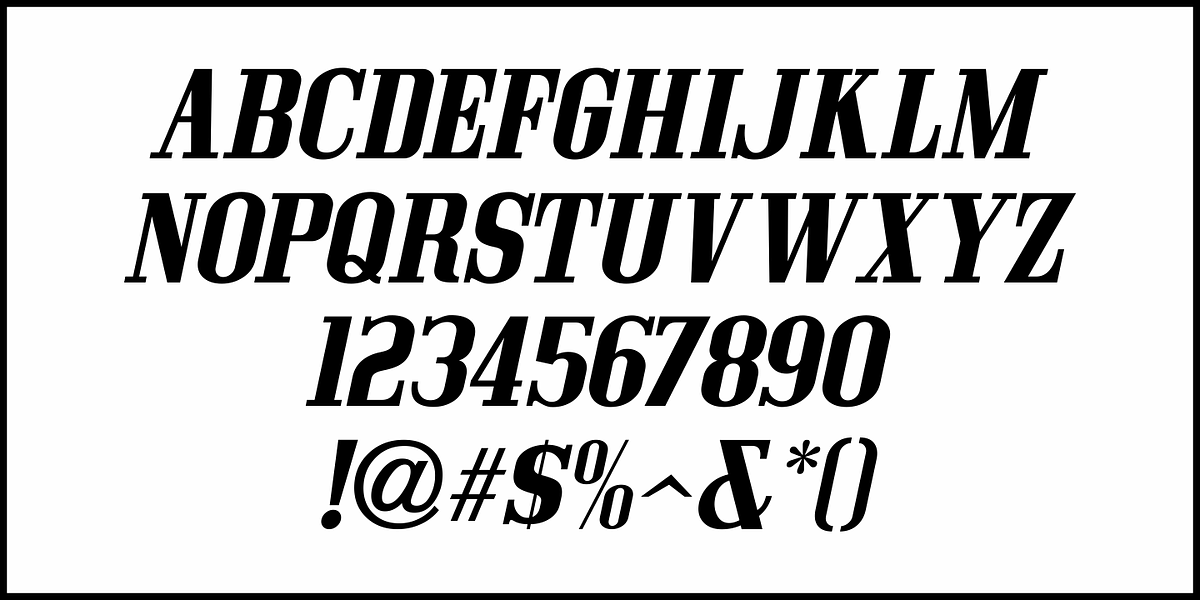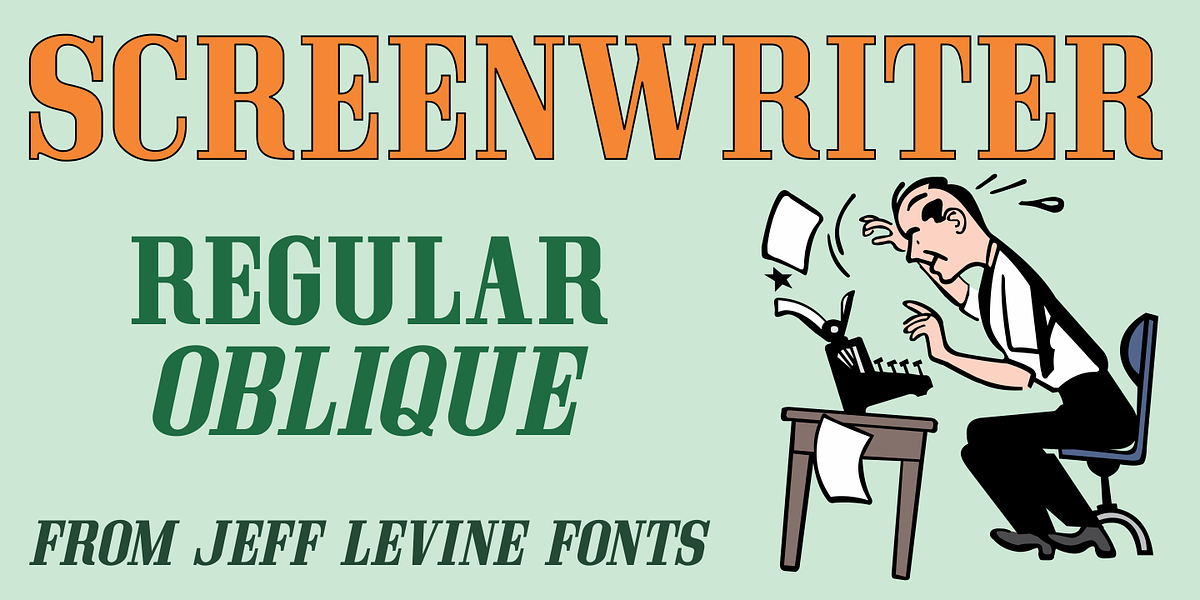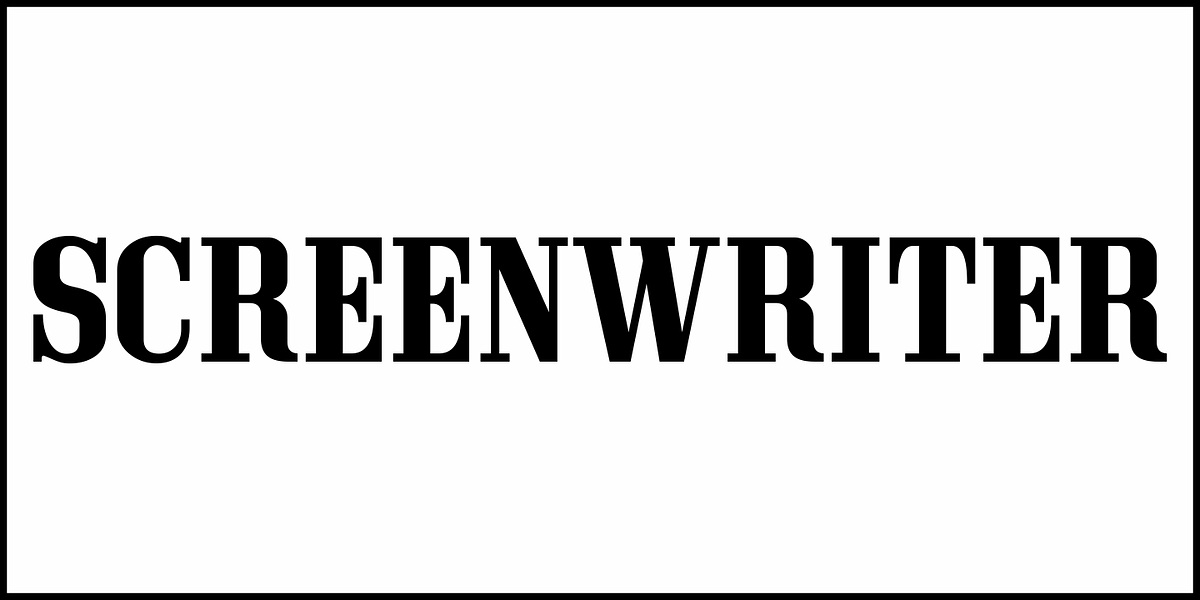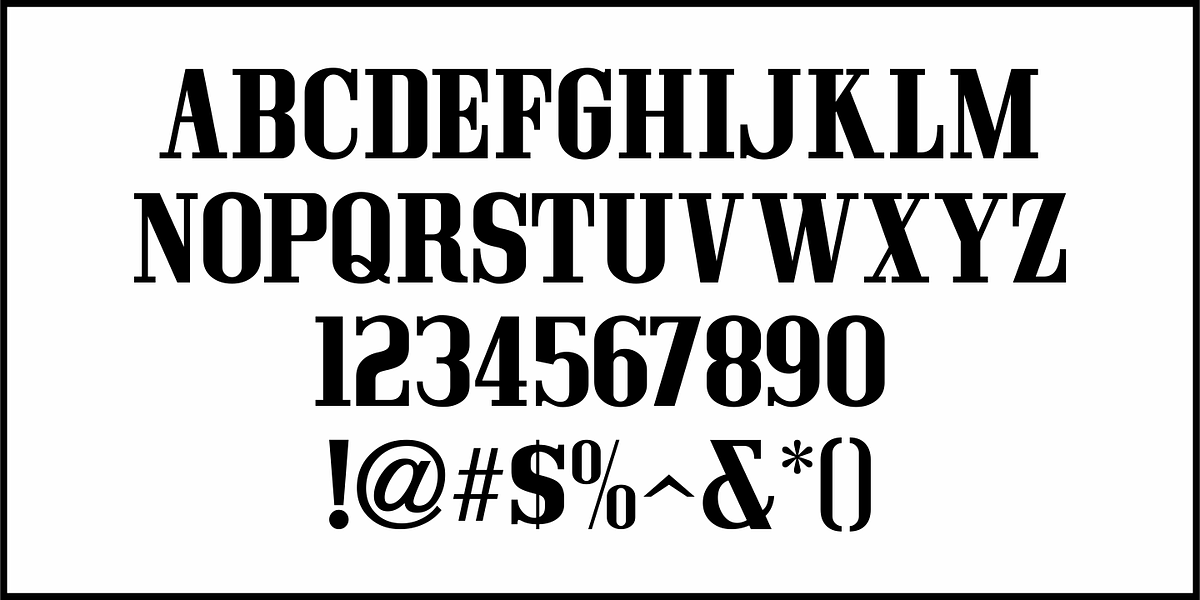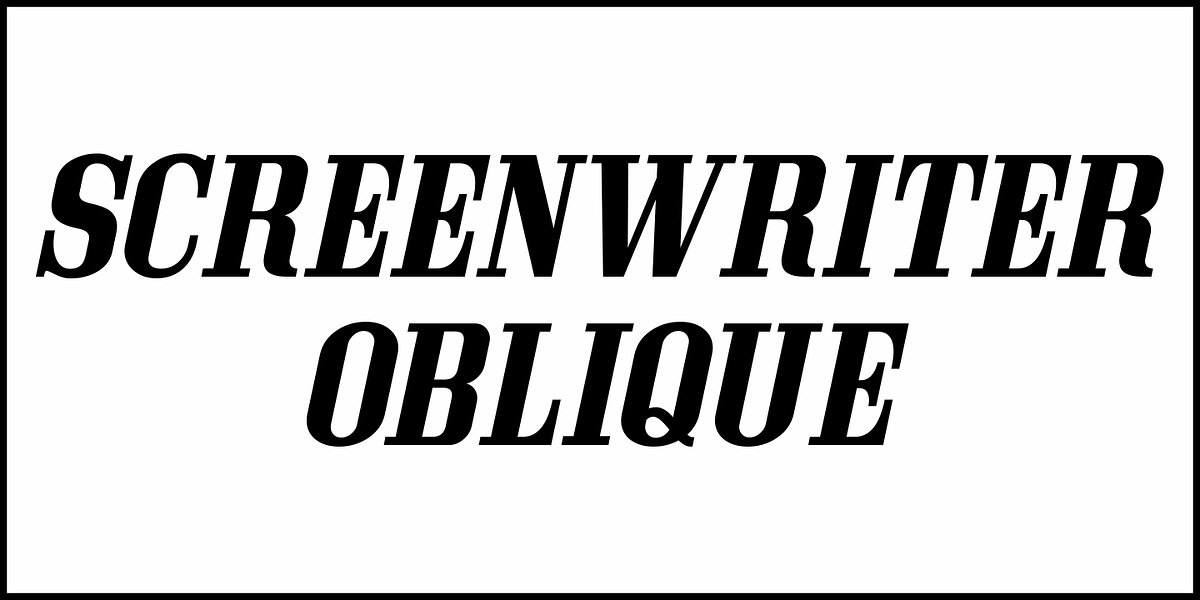
Screenwriter JNL
The hand lettered credits from the 1950 Humphrey Bogart film “In a Lonely Place” inspired the digital version called Screenwriter JNL, which is available in both regular and oblique versions.
The font was named after the profession of the main character (Dixon Steele) who was a Hollywood screenwriter.